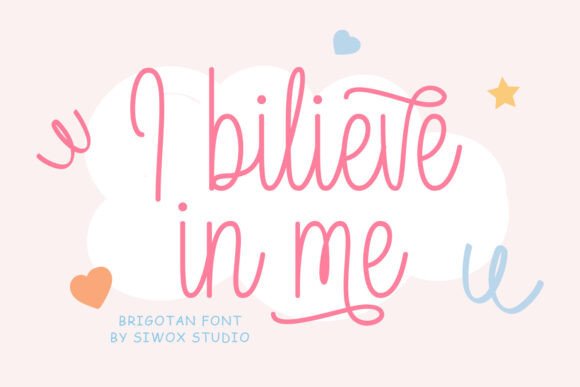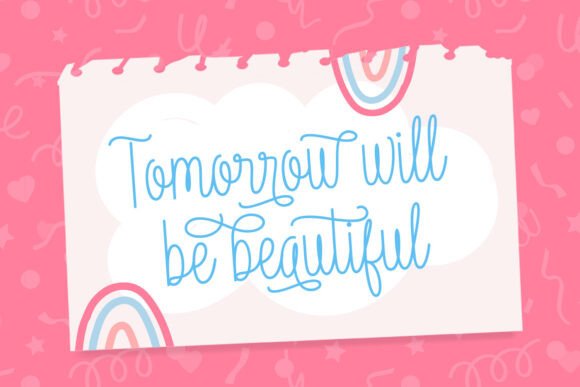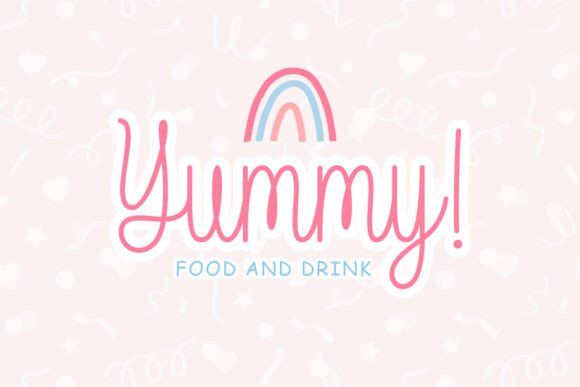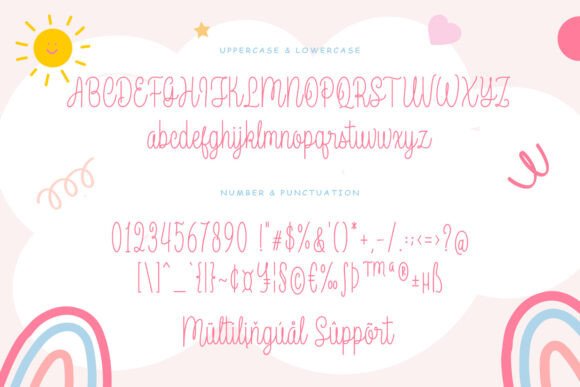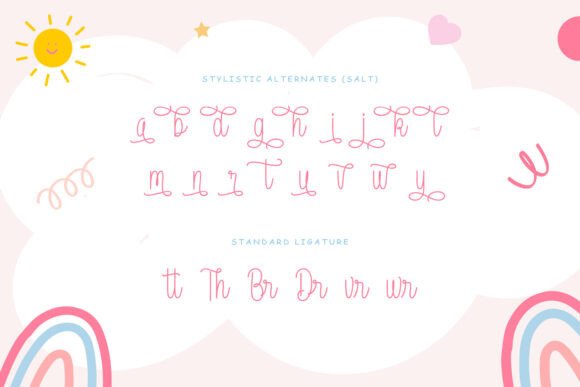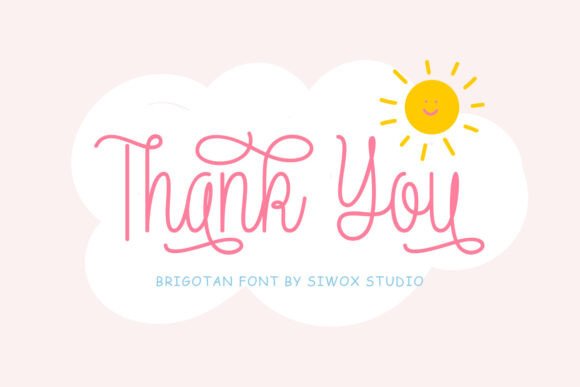
Introducing Brigotan Font: The Perfect Choice for Designs that Exude Love and Care
In the world of typography, fonts play a crucial role in conveying the tone and personality of a brand. For designers and crafters looking for a font that embodies a sense of love and care, Brigotan Font is an excellent choice. This cute monoline script font has been gaining popularity for its simplicity, elegance, and versatility, making it perfect for a wide range of design applications.
What Makes Brigotan Font Stand Out?
Brigotan Font’s simplicity and elegance are its standout features. The font’s monoline script style gives it a modern yet timeless feel, allowing it to seamlessly blend with various design aesthetics. Whether you’re creating logos, labels, or promotional materials, Brigotan Font adds a sweet and approachable touch that instantly resonates with audiences.
One of the key benefits of using Brigotan Font is its ability to convey a sense of love and care. This makes it an ideal choice for brands focused on baby products, as it instantly communicates a sense of warmth and nurturing. However, its versatility also makes it suitable for a wide range of other design applications, from wedding invitations to packaging designs.
Design Applications for Brigotan Font
Brigotan Font’s versatility is one of its most significant advantages. Here are some design applications where Brigotan Font truly shines:
- Logos: Brigotan Font’s simplicity and elegance make it perfect for creating logos that are both modern and timeless. Its monoline script style allows for a wide range of customization options, ensuring that your logo stands out.
- Labels: Whether you’re designing labels for baby products, food items, or other products, Brigotan Font adds a touch of warmth and approachability. Its clean lines and elegant feel make it perfect for creating labels that are both functional and visually appealing.
- Promotional Materials: Brigotan Font is also ideal for creating promotional materials such as brochures, flyers, and posters. Its modern yet timeless feel ensures that your promotional materials stand out, while its sense of love and care helps to create an emotional connection with your target audience.
- Wedding Invitations: Brigotan Font’s elegant feel makes it perfect for creating wedding invitations that are both romantic and sophisticated. Its monoline script style allows for a wide range of customization options, ensuring that your wedding invitation is truly unique.
- Packaging Designs: Brigotan Font is also suitable for packaging designs, particularly for products that require a touch of warmth and approachability. Its clean lines and elegant feel make it perfect for creating packaging designs that are both functional and visually appealing.
Why Designers and Crafters Love Brigotan Font
Designers and crafters love Brigotan Font for several reasons:
- Easy to Read: Brigotan Font is incredibly easy to read, making it perfect for designs that require a clear and concise message.
- Highly Versatile: Brigotan Font’s versatility is one of its most significant advantages. It can be used for a wide range of design applications, from logos to packaging designs.
- Customizable: Brigotan Font’s monoline script style allows for a wide range of customization options, ensuring that your design is truly unique.
- Modern yet Timeless: Brigotan Font’s modern yet timeless feel ensures that your design stands out, while its sense of love and care helps to create an emotional connection with your target audience.
| Font Name | Brigotan Font |
| Author | SiwoxS |
In conclusion, Brigotan Font is an excellent choice for designers and crafters looking for a font that embodies a sense of love and care. Its simplicity, elegance, and versatility make it perfect for a wide range of design applications, from logos to packaging designs. Whether you’re creating designs for baby products or other products that require a touch of warmth and approachability, Brigotan Font is an ideal choice.